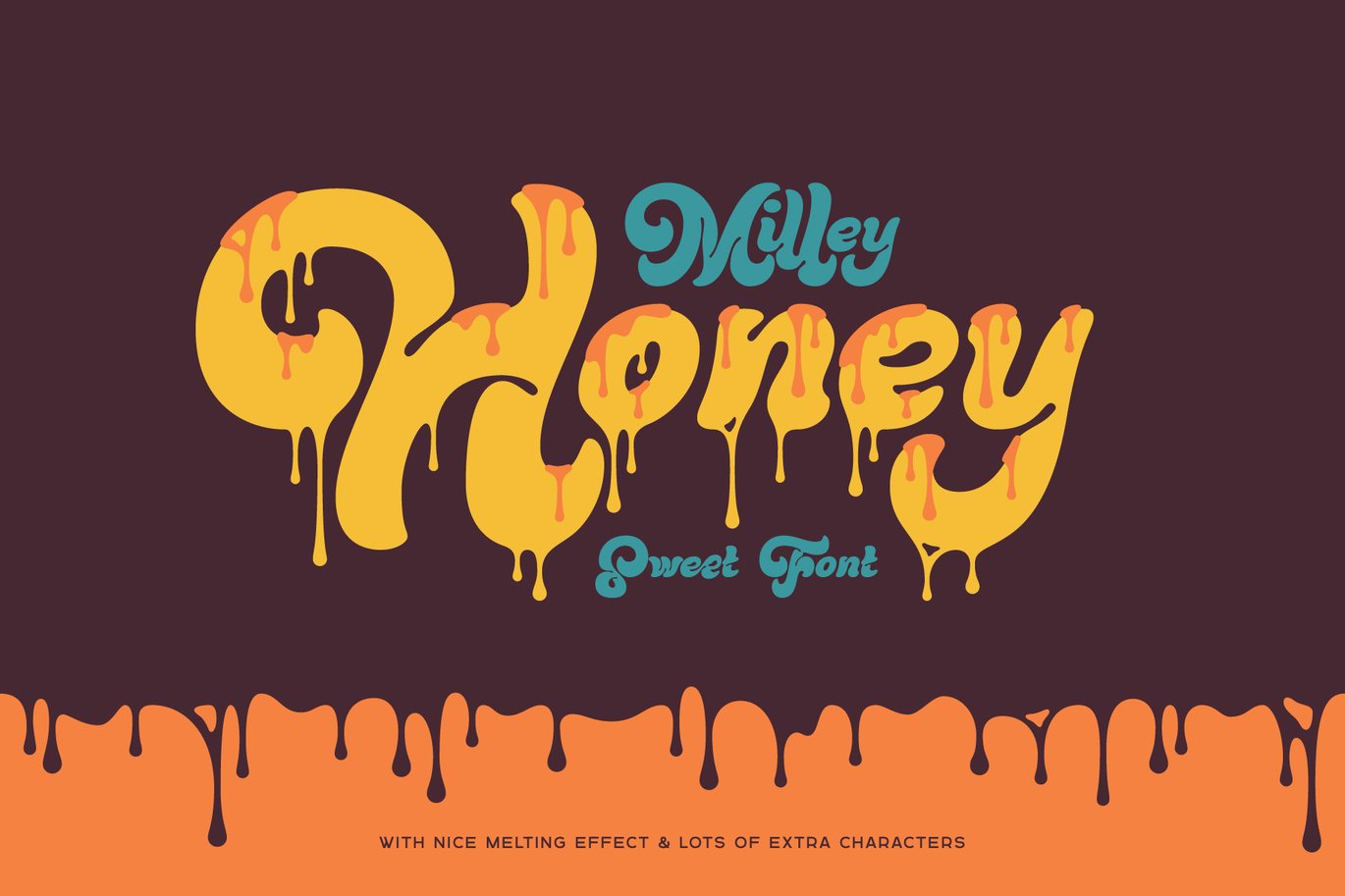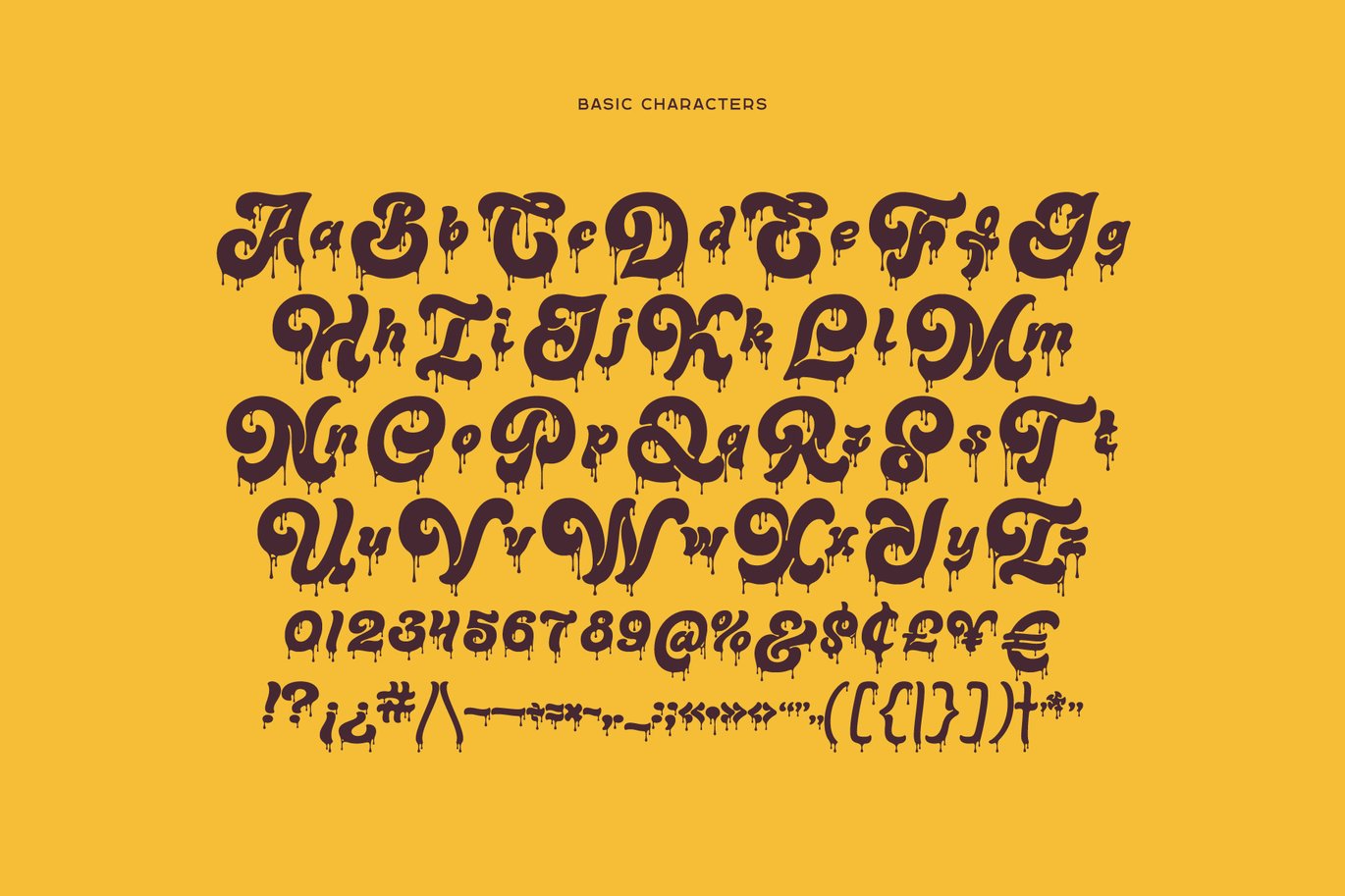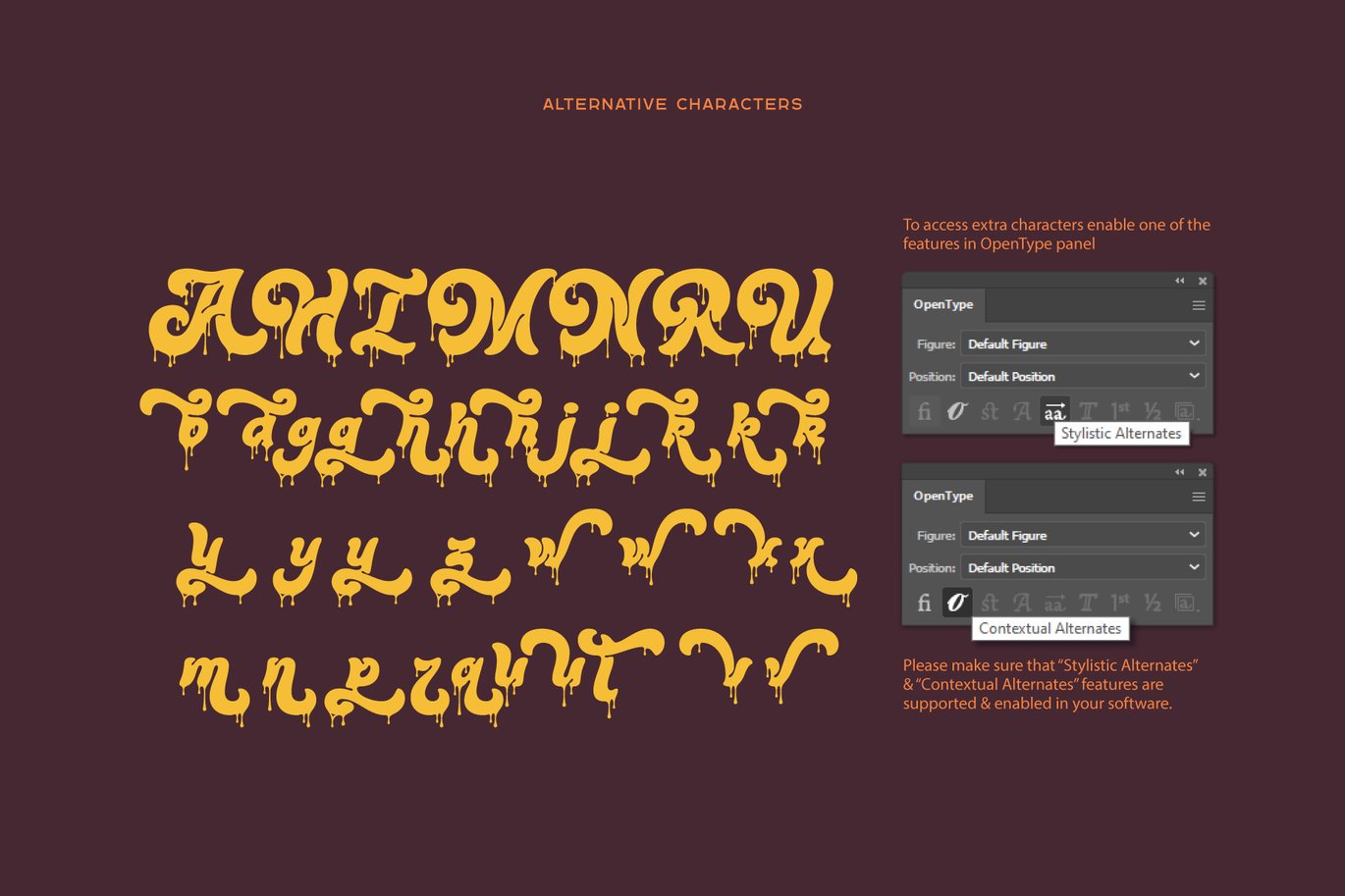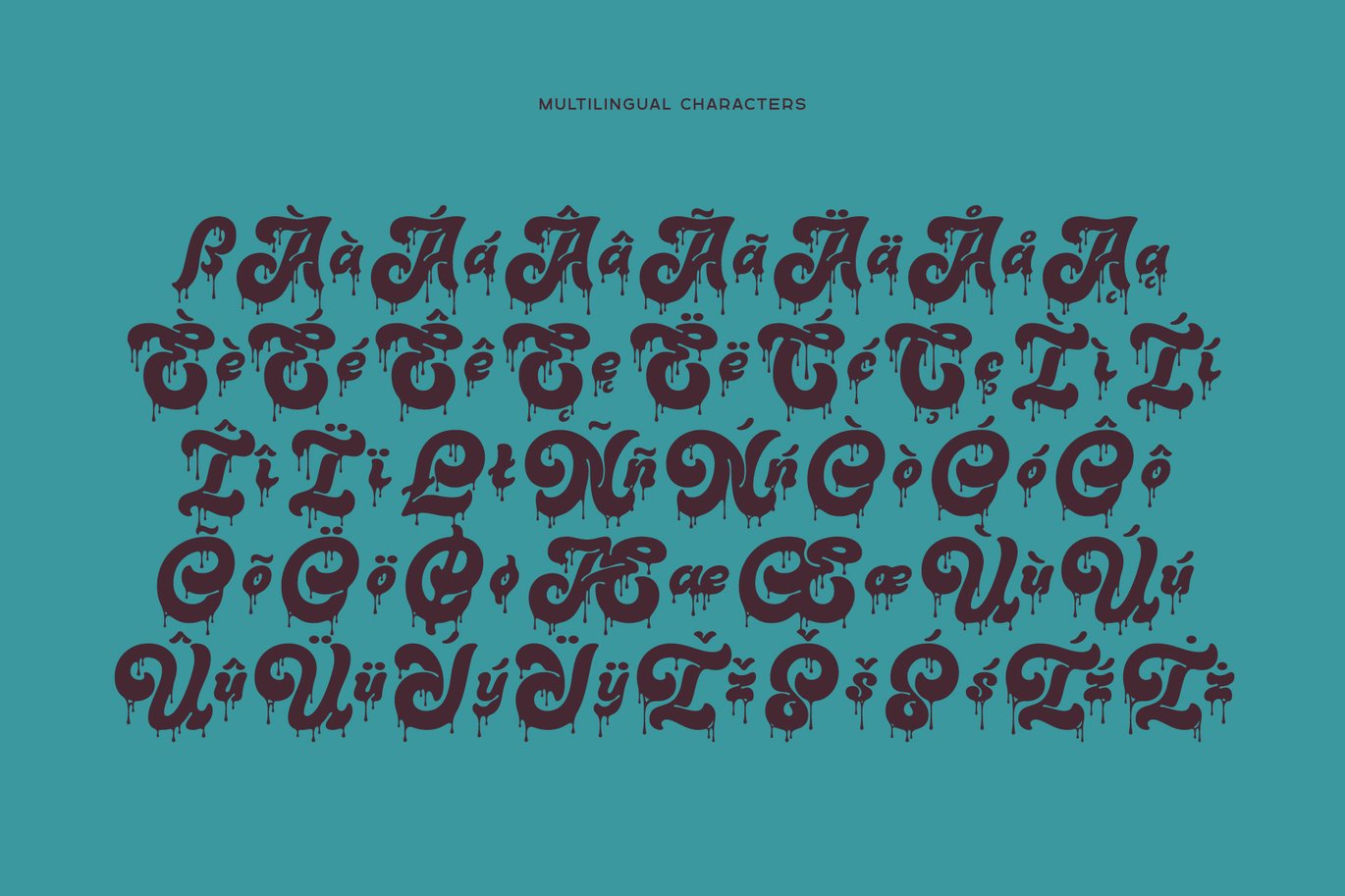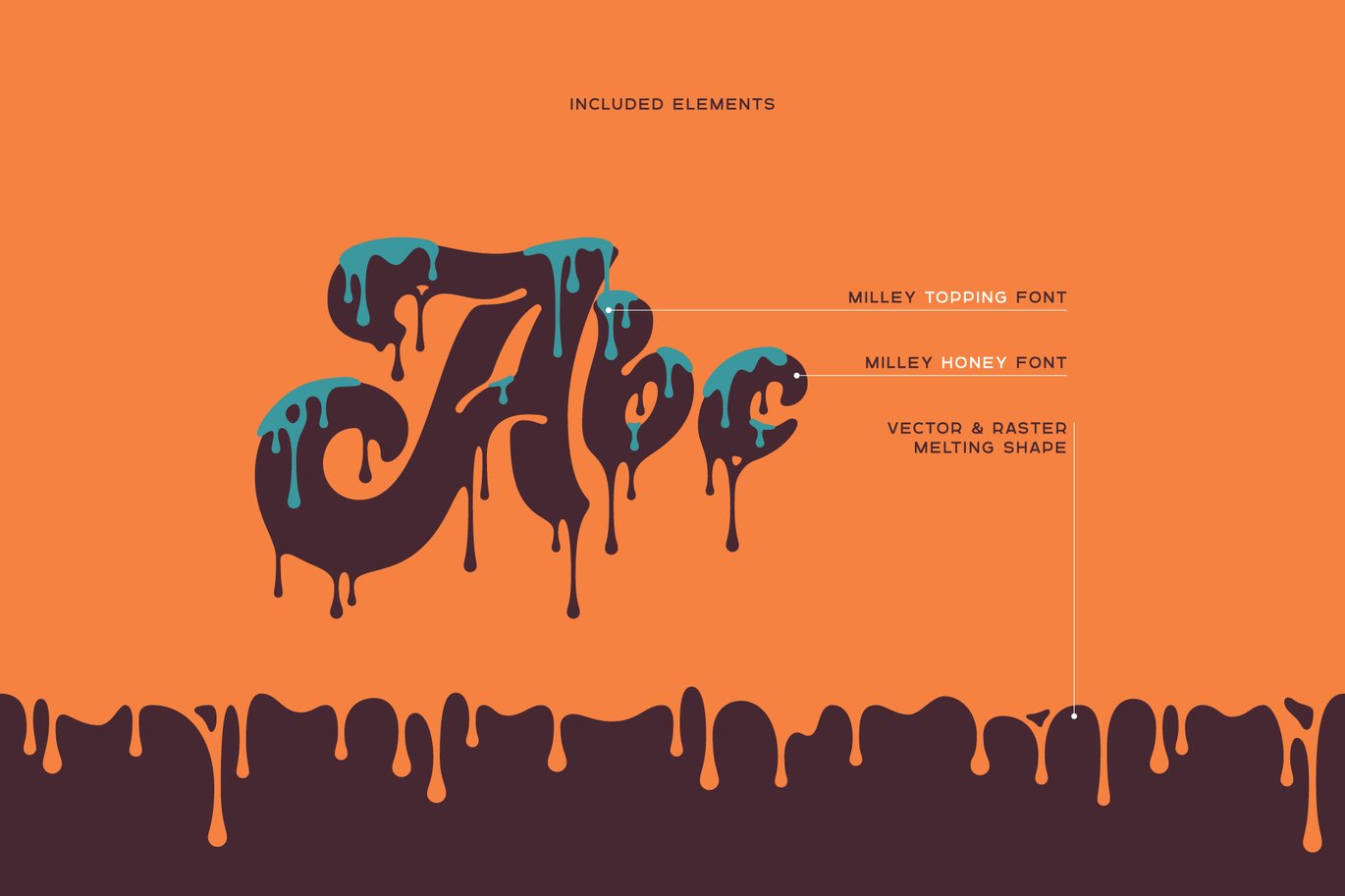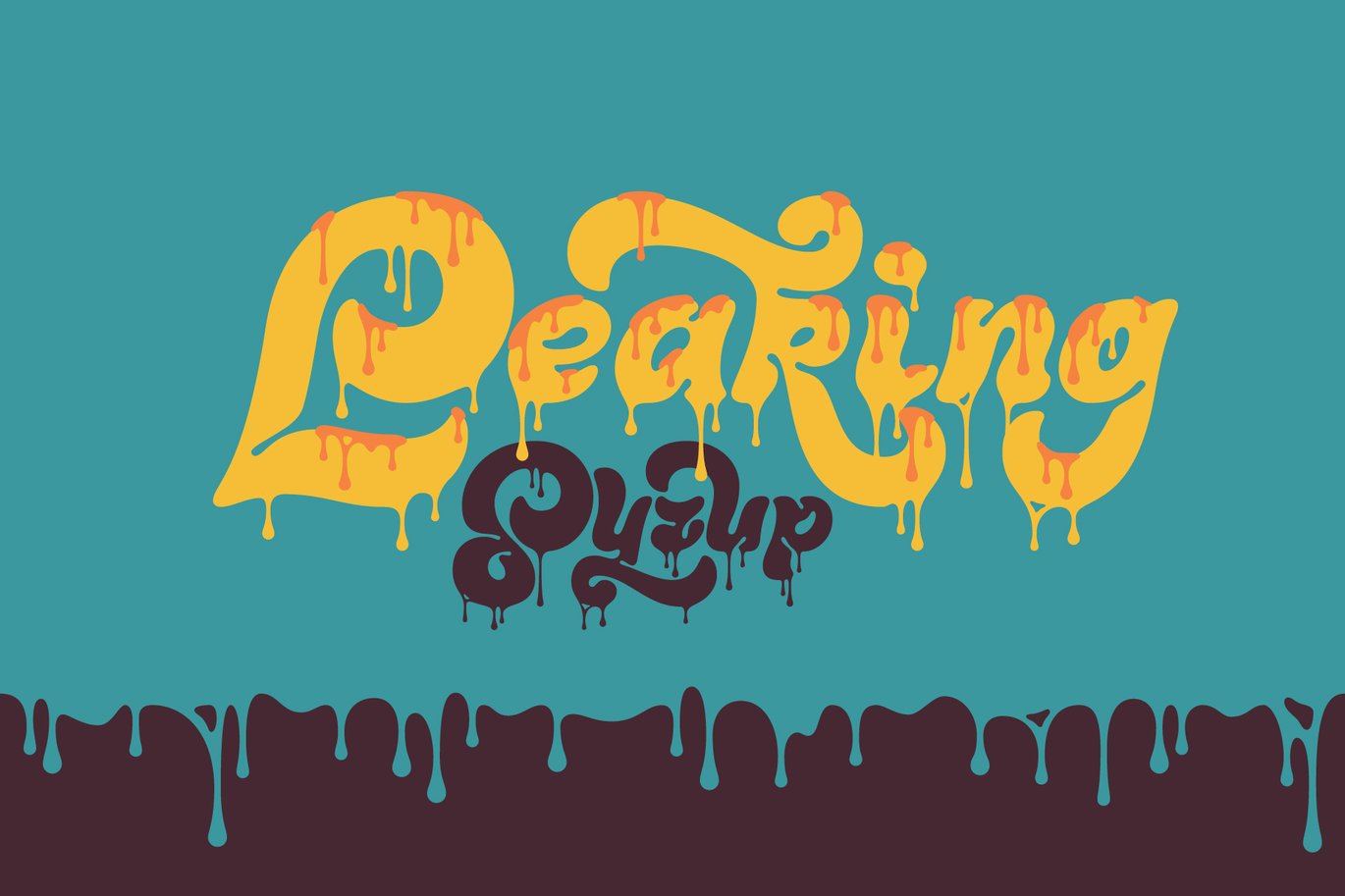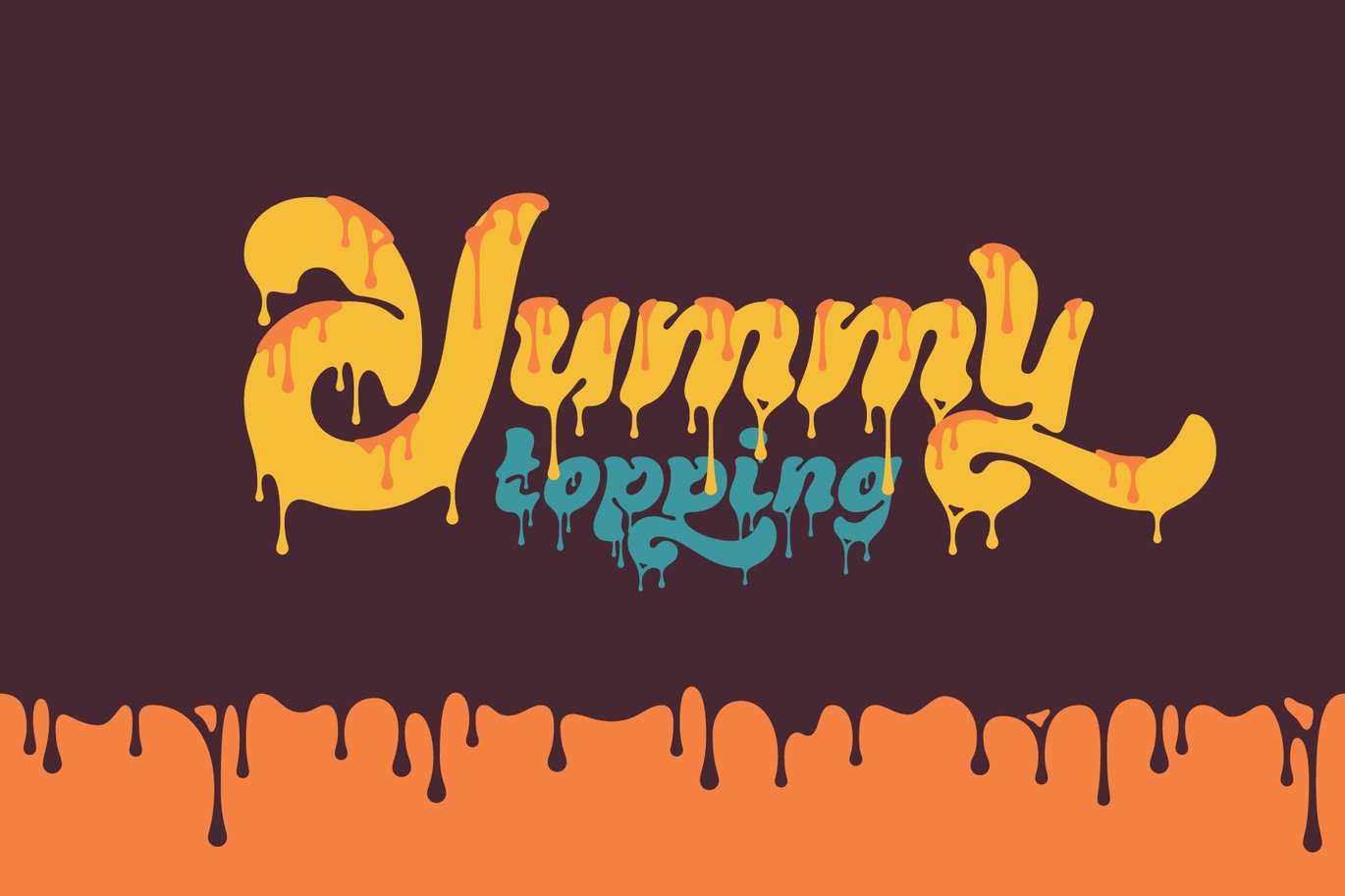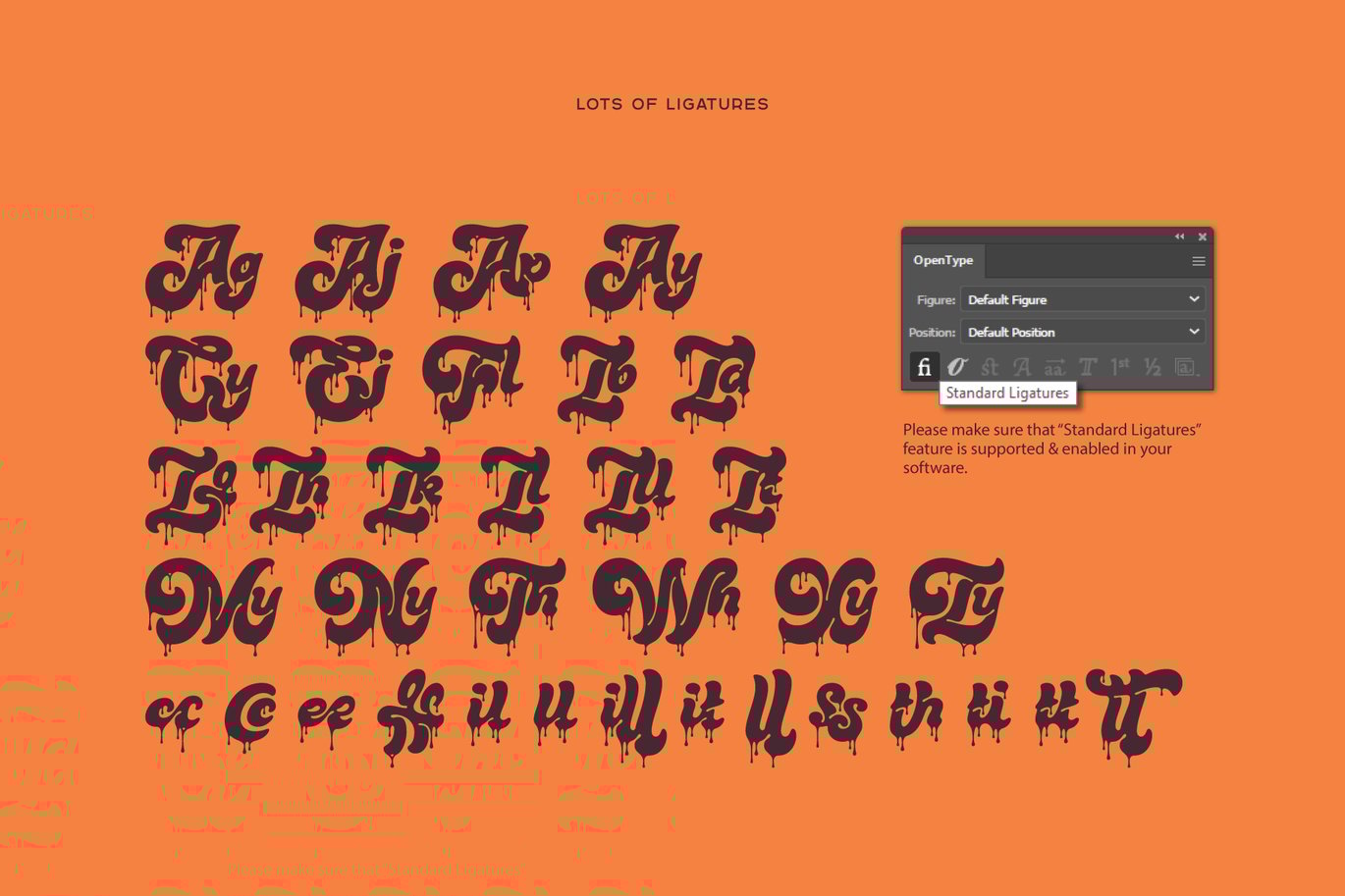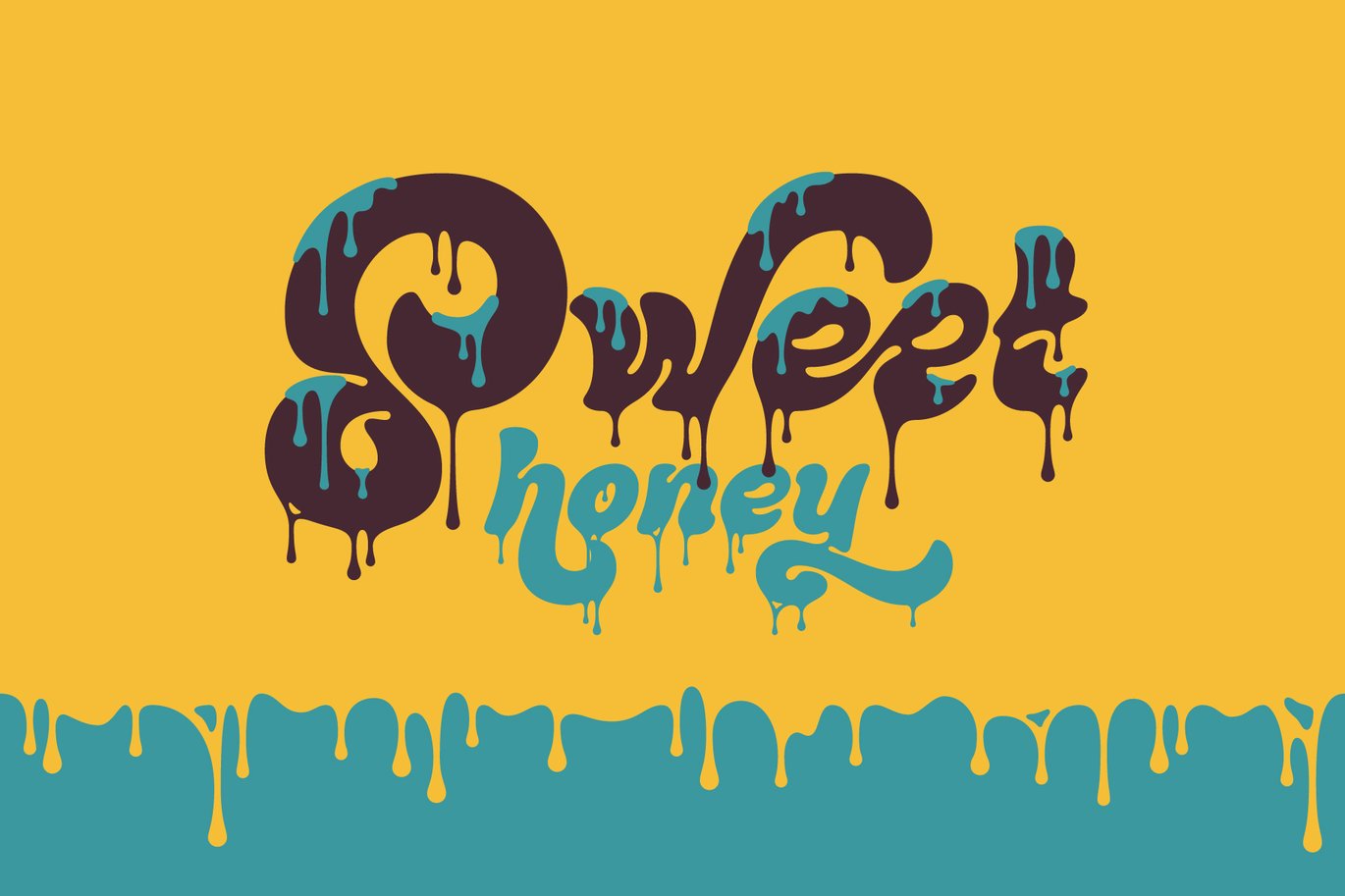
Milley Honey — Sweet Melting Font
Hello! Presenting a nice brush style font with melting effect — Milley Honey. This typeface has a soft liquid shape that suits perfectly for food & beverage packaging or label design. This font consists of two fonts with dripping viscous liquid for easy recoloring.
Lots of ligatures and extra glyphs will help you to create an original lettering compositions (please make sure that OpenType features are supported & enabled in your software). Milley Honey font has multilingual support (check out a screenshot with available characters).